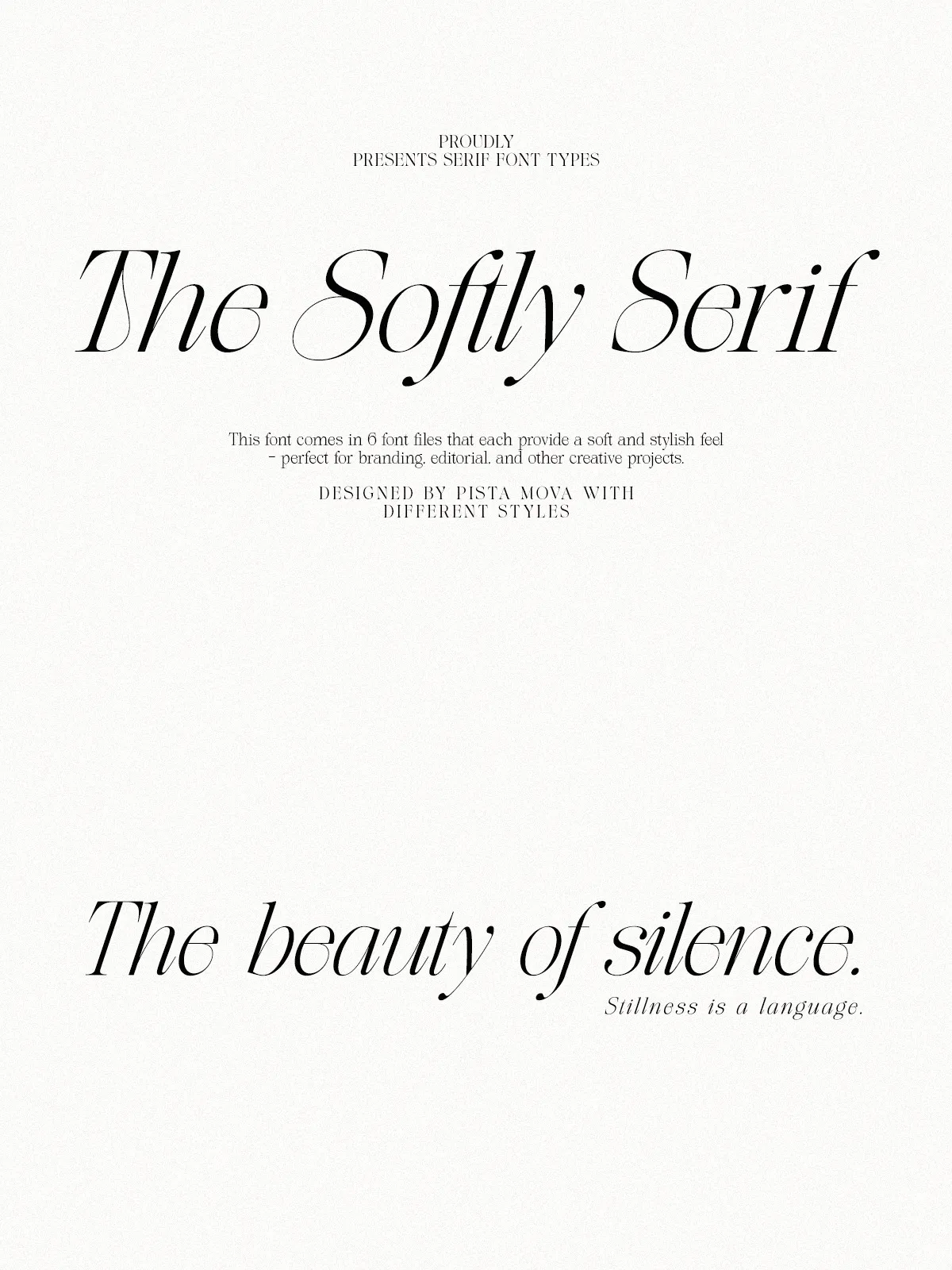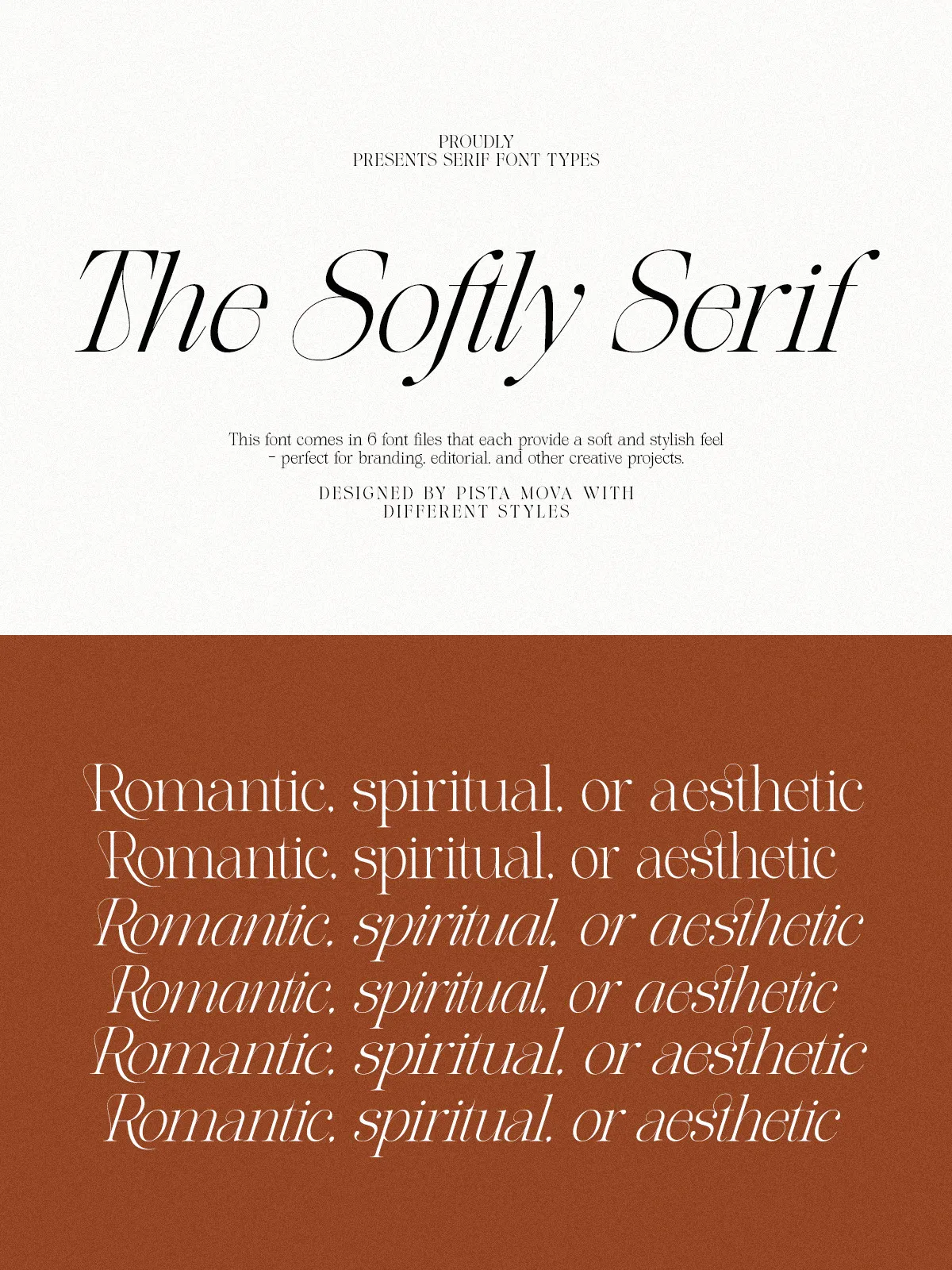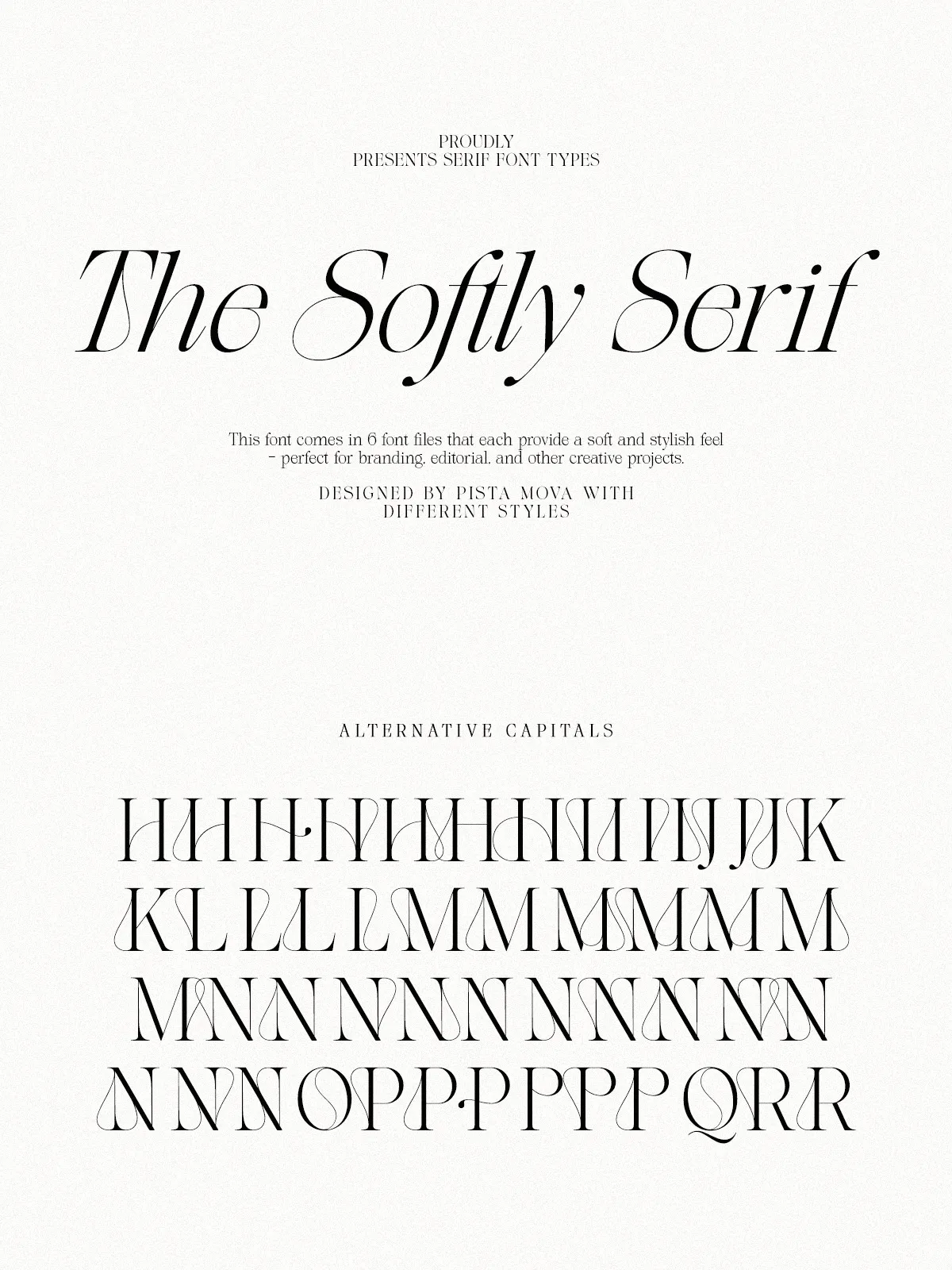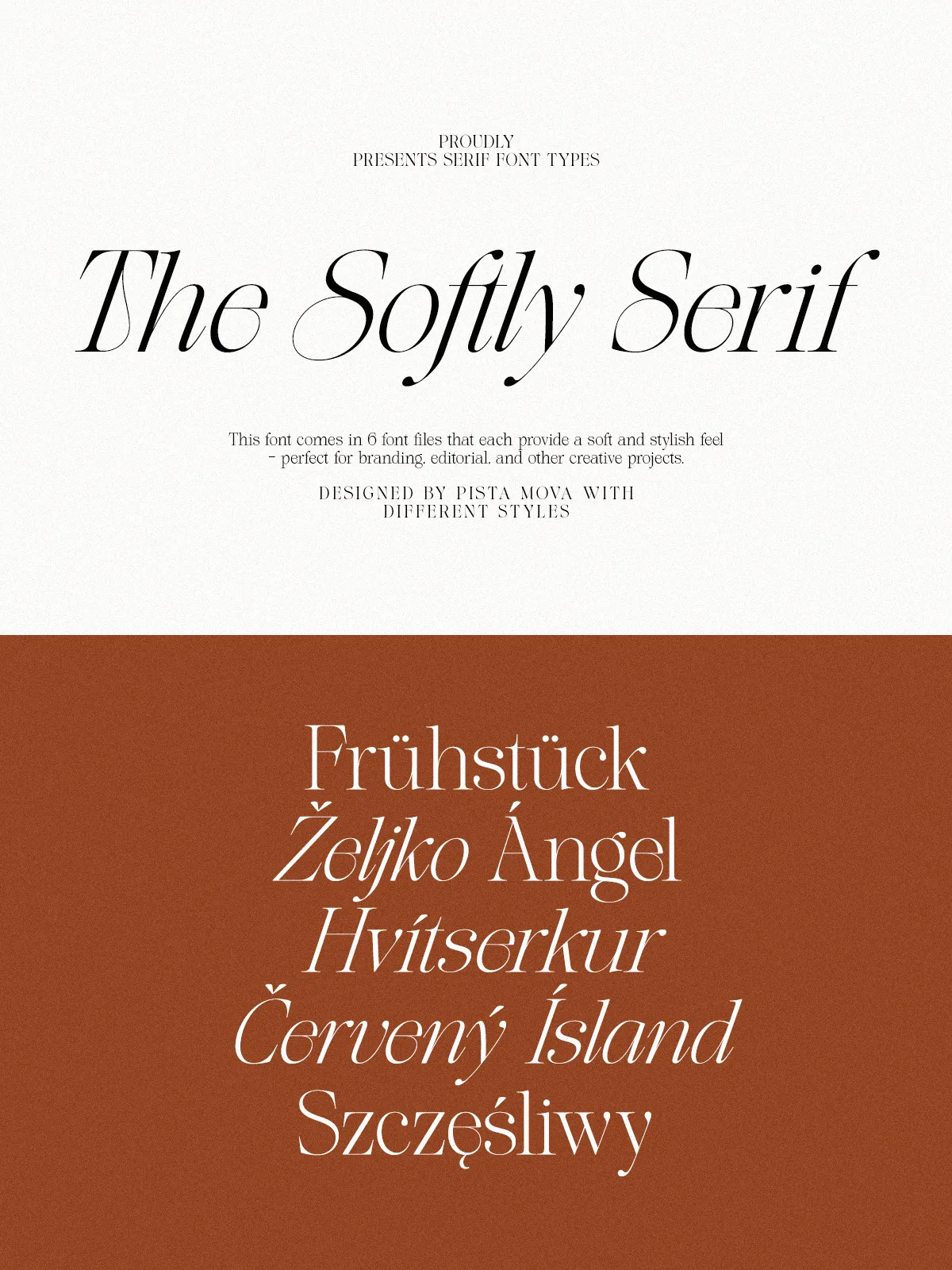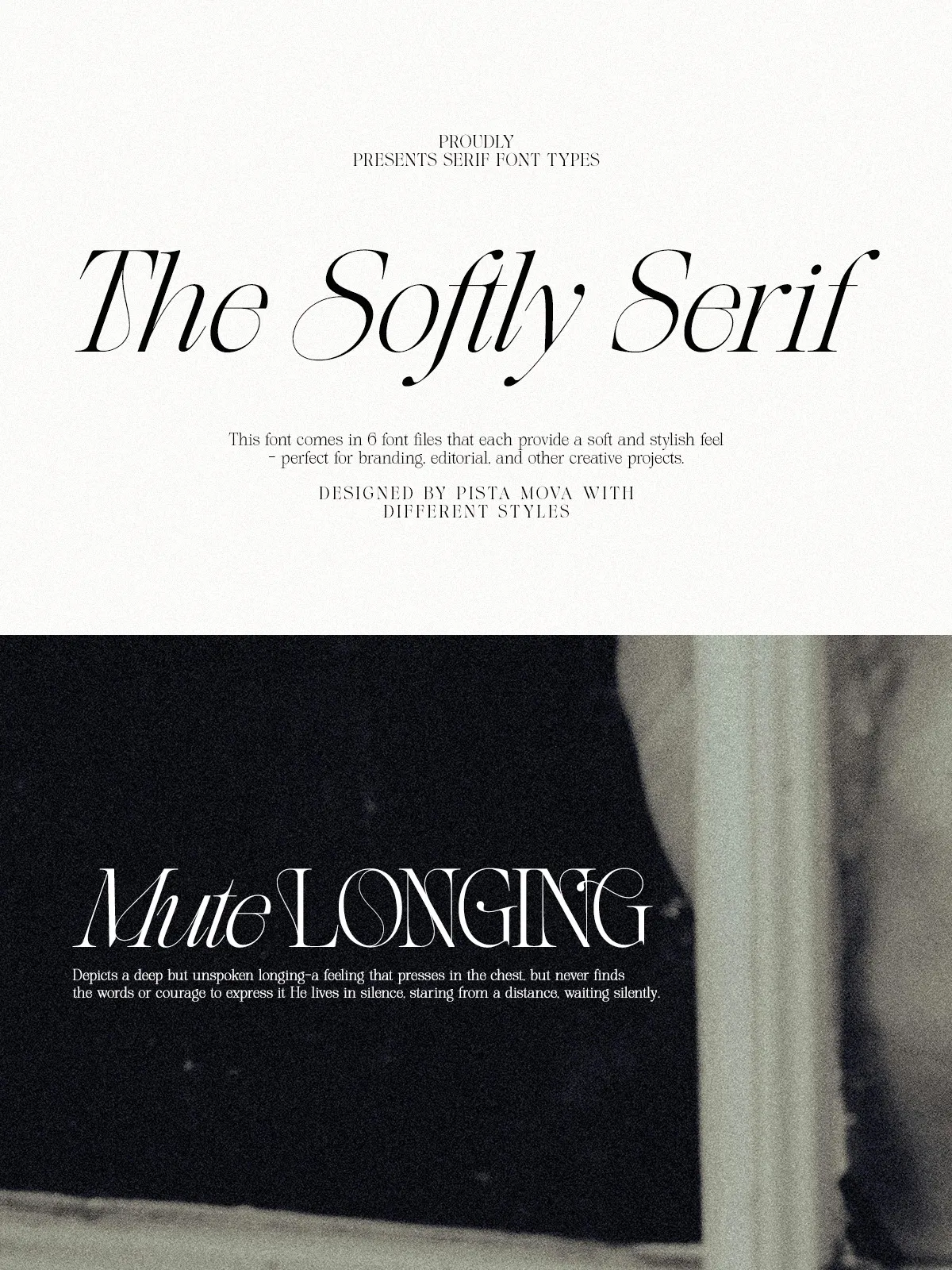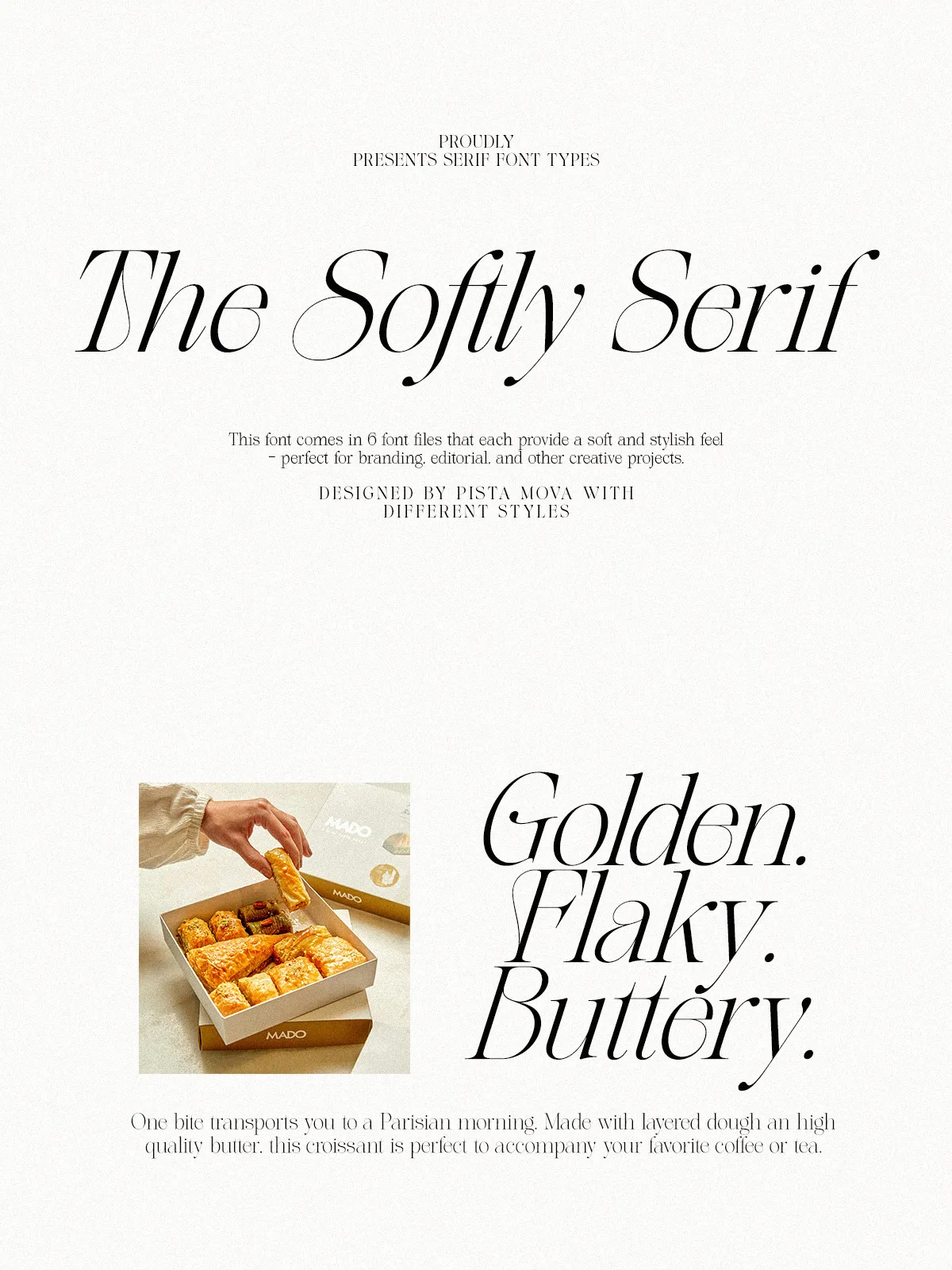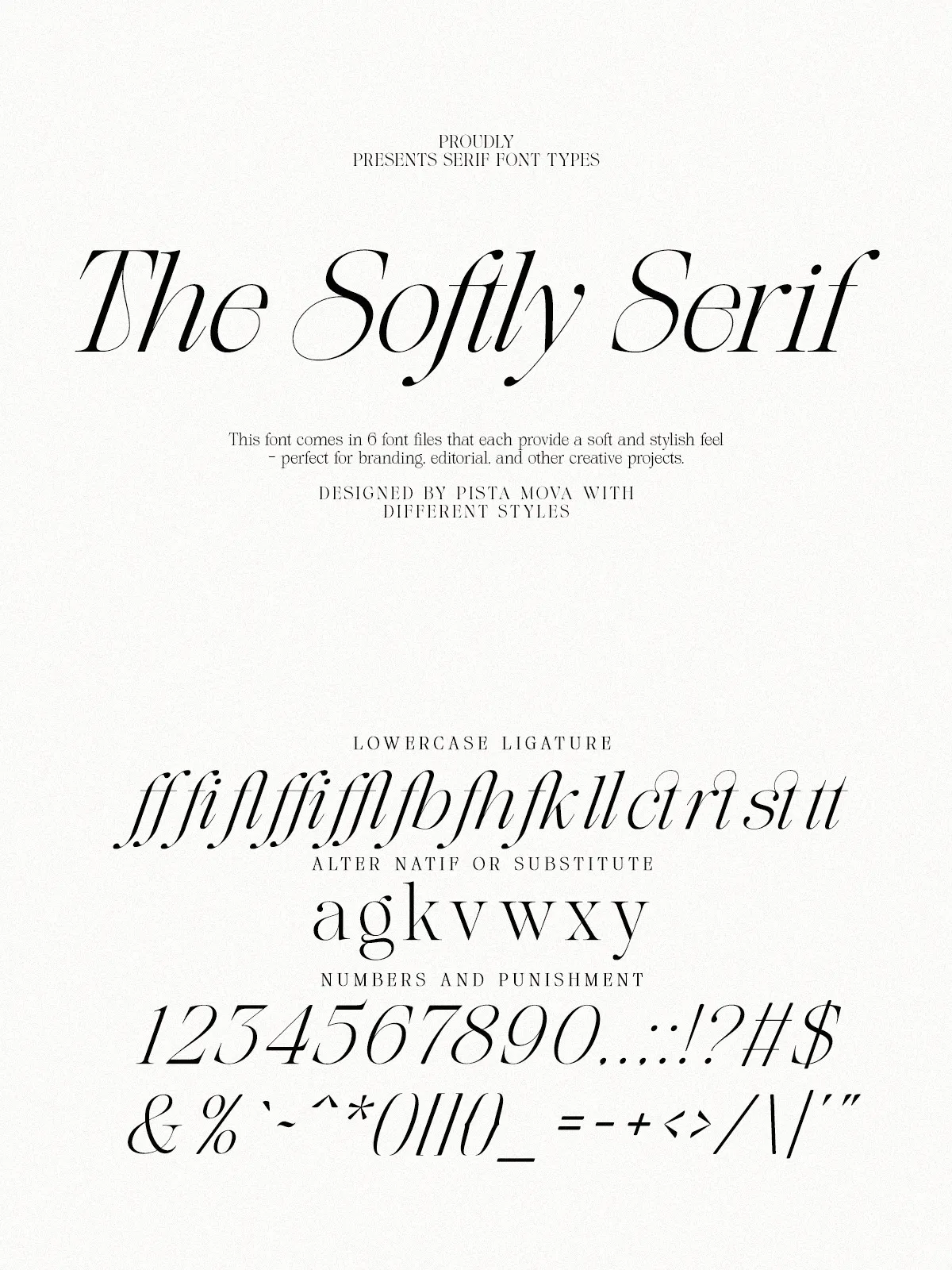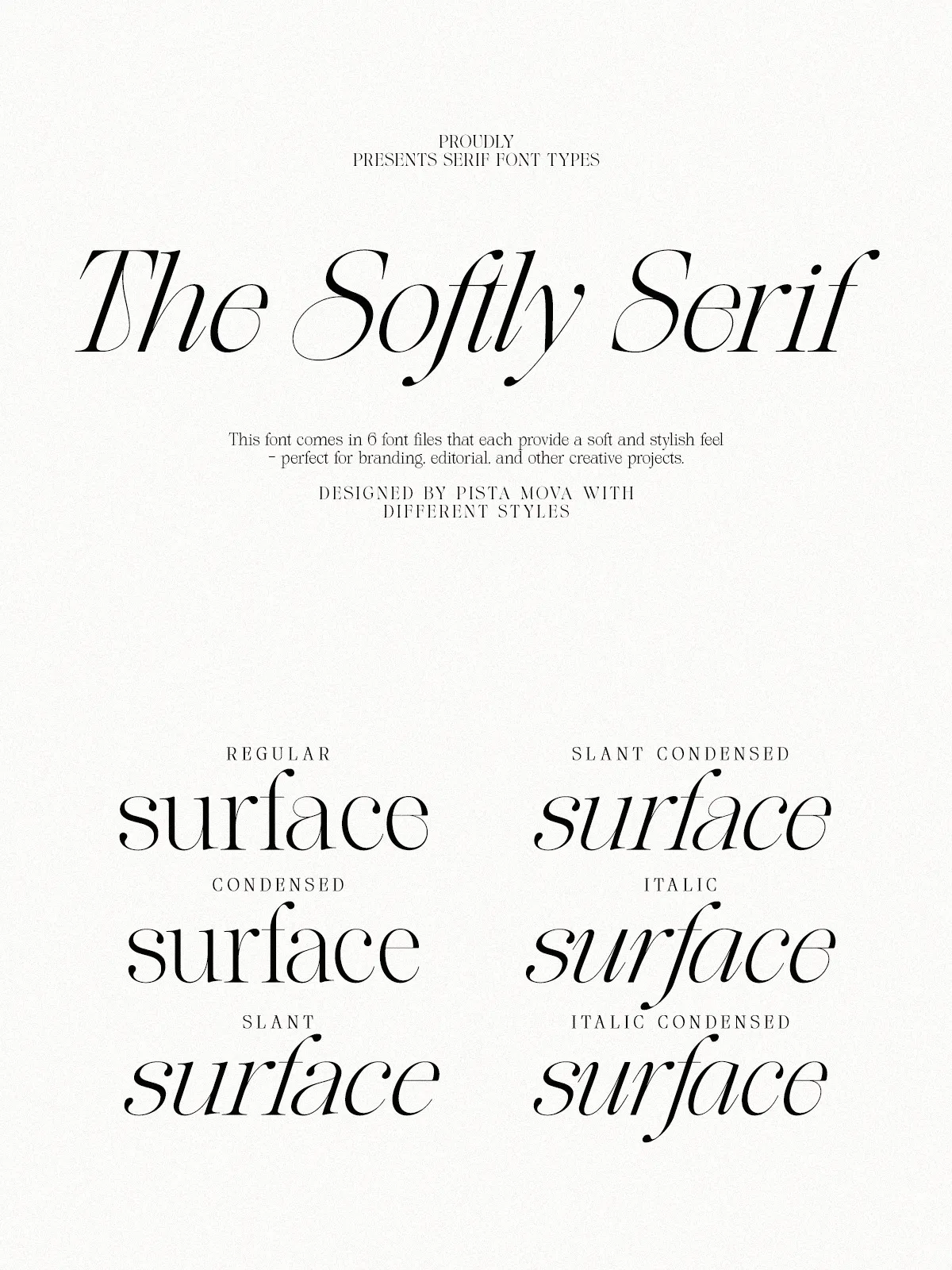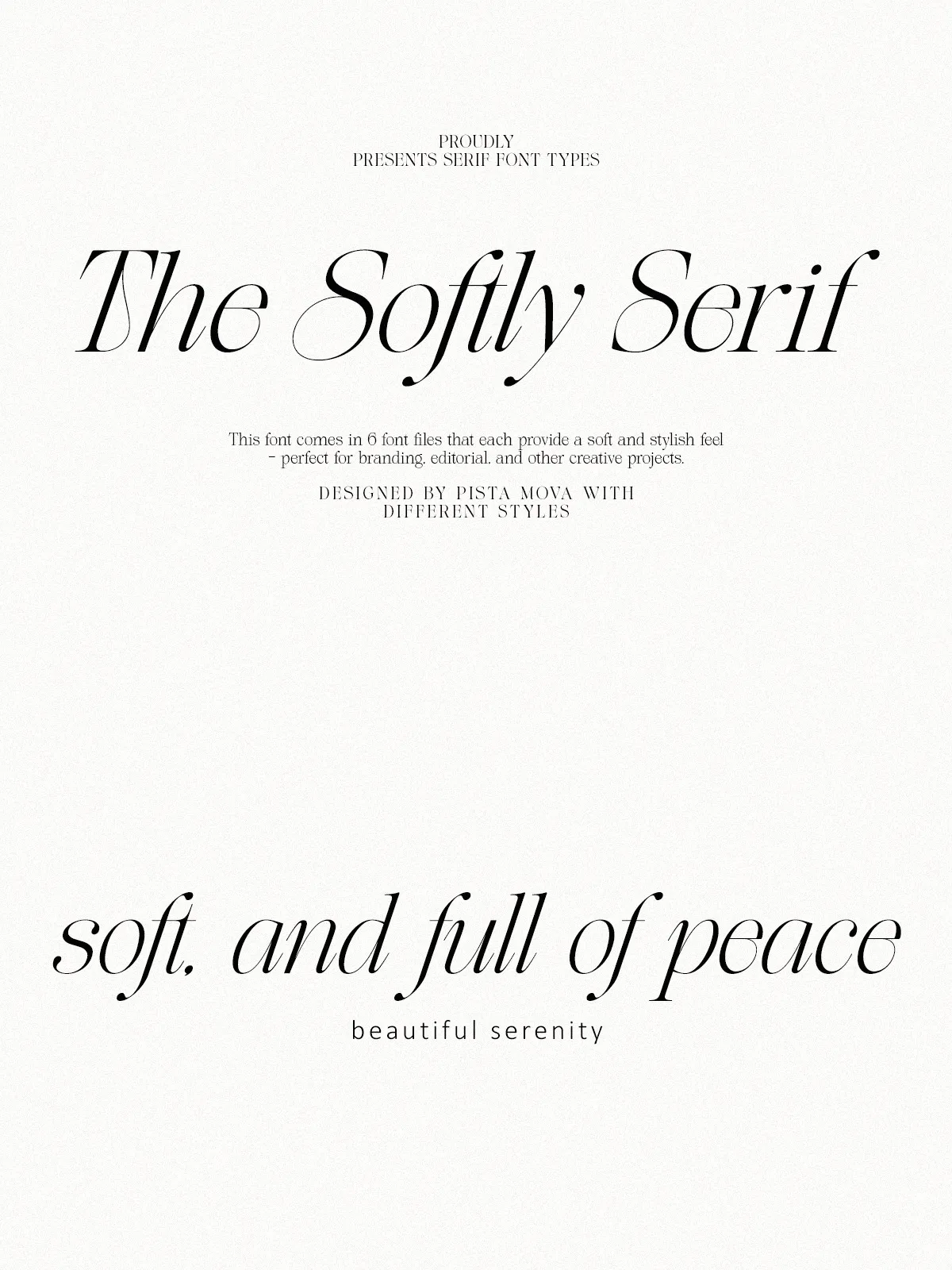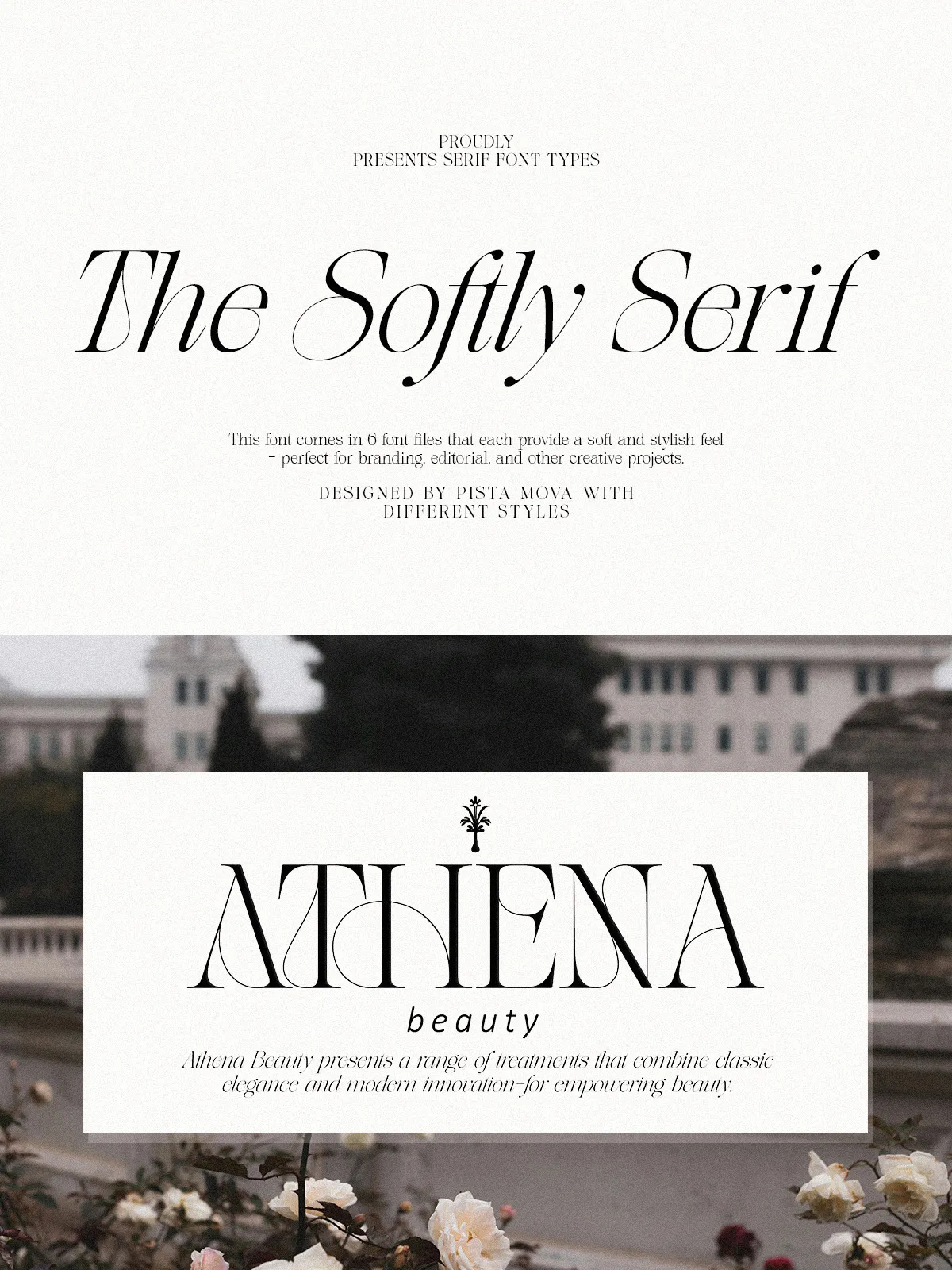
The Softly Serif
Softly Serif isn’t just a font—it’s a visual experience. Born from a deep reverence for traditional serif craftsmanship and reimagined for today’s design landscape, this typeface blends timeless charm with contemporary precision. With its delicate high-contrast strokes, flowing serifs, and dynamically expressive italics, Softly Serif transforms every word into a work of art. Whether you’re crafting a luxury brand identity, designing a literary magazine, or building a stunning digital experience, this font delivers unmatched elegance and readability.
Engineered for Creativity Across Every Medium
Impeccable Typography, From Print to Pixel
From editorial layouts to web interfaces, Softly Serif thrives in every context. Its carefully balanced x-height and open letterforms ensure exceptional legibility—even in long-form content. The high-contrast structure adds visual drama without sacrificing clarity, making headlines pop and body text breathe. The true italics are not a mere slant; they are independently designed with unique letterforms that harmonize with uprights, creating a rhythmic, intelligent flow across the page.
Designed for professionals, Softly Serif supports over 90 languages, including extended Latin, Cyrillic, and Greek scripts. This multilingual capability ensures your message remains authentic and polished across global audiences. Whether you’re a graphic designer, web developer, publisher, or brand strategist, this typeface adapts to your vision with precision and flair.
Powerful Features for Designers Who Demand Control
Advanced OpenType Features, Built for Excellence
Take full command of your typography with a suite of built-in OpenType features. Access elegant ligatures for seamless text flow, contextual alternates to prevent visual repetition, and stylistic sets that let you tailor the font to your style. The inclusion of discretionary ligatures adds a subtle touch of refinement, perfect for high-end editorial projects and premium branding.
With five distinct variations—Softly Serif, Softly Serif Slant, Softly Serif Condensed, Softly Serif Slant Condensed, and Softly Italic—you have unprecedented flexibility. Use the condensed versions for tight layouts and bold statements, the slants for dynamic headlines, or the true italics for expressive emphasis. Each variant maintains consistent proportions and emotional depth, ensuring design cohesion.
Write with Grace. Design with Purpose.
Softly Serif isn’t just a typeface—it’s a design philosophy. It invites you to slow down, savor the details, and elevate your work with quiet confidence. Let its whisper of elegance guide your narrative, whether you’re shaping a brand story, launching a book, or launching a digital campaign.